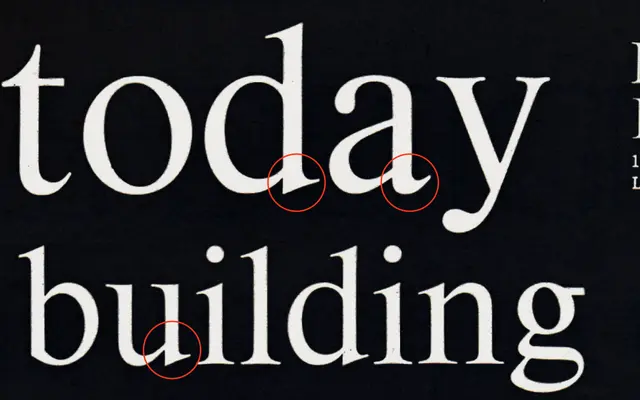
Reckless Collection
Displaay Type Foundry · Martin Vacha · 2014
A nine-family renaissance serif system by Martin Vacha, with three widths and three contrast levels totalling 72 weights and 144 styles.
A renaissance old-style serif system by Martin Vacha, first sketched in September 2012 during a UAL London internship in the Monotype archives, released in June 2014 and consolidated as the Reckless Collection in February 2026 (version 3.002). The collection runs to 9 families across three widths (Condensed, Standard, Wide) and three contrasts (S for small text with thick serifs and lower contrast, M for medium sizes, XL for large display). Total range is 72 weights and 144 styles, with a three-axis variable font covering Weight, Contrast and Width. Calligraphic terminals on a, f, j, r, C, c, G, S and s give it its character, with consistent bottoms across a, d and u that resolve the inconsistencies Vacha noticed in Times. Language support covers Latin and Central European plus Vietnamese, Greek and Cyrillic. Note that the legacy Reckless and Reckless Neue have been retired and replaced by this collection.
Displaay describes Reckless as a serif typeface with a renaissance (old-style) character and a notably raised x-height, drawing from calligraphic influences in early serif designs. The current Reckless Collection replaces the legacy Reckless and Reckless Neue with nine sub-families: three widths (Condensed, Standard, Wide) by three contrasts (S, M, XL).